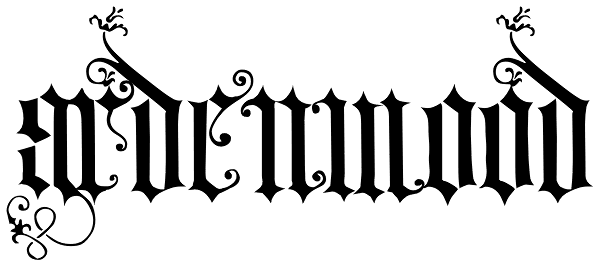
Ardenwood
Ardenwood is based on a wood-carved alphabet from the early 1500s. It features gothic characters with elaborate floral decorations. The lower case has the more basic versions of the letters while the upper case characters are more extensively...